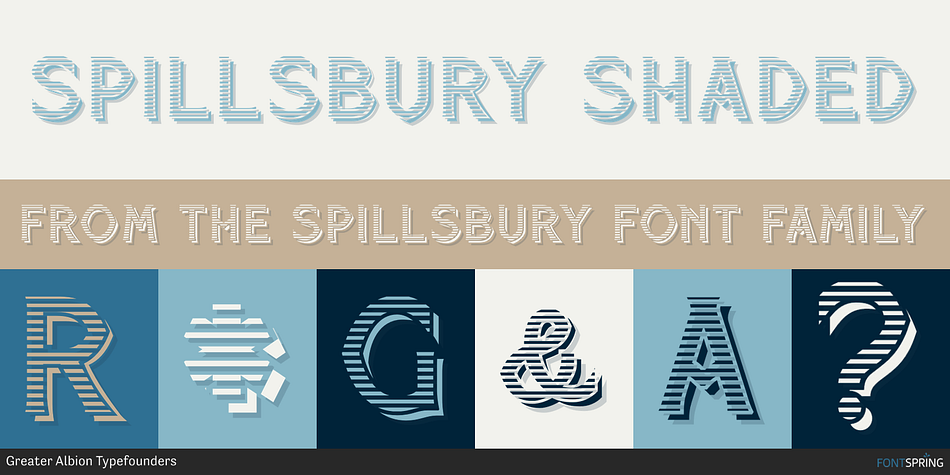
SPILLSBURY SHADED
Spillsbury is a historical and western font family. This typeface has ten styles and was published by Greater Albion Typefounders.
Spillsbury was inspired by some examples of 1920s signwriting (principally seen on the side of some vintage vans-good thing they were in a photograph and not on the move!).
Spillsbury was inspired by some examples of 1920s signwriting (principally seen on the side of some vintage vans-good thing they were in a photograph and not on the move!).  Spillsbury draws inspiration from these sources to provide a unique combination of legibility and flair, which echoes the charm of advertising and publicity material from the halcyon days of the 1920s. A basic range of four display faces os offered - Regular, Plain (not all that plain really!), Shaded and Shadowed.  In a new departure for Greater Albion, three pairs of ‘Duo’ faces are also offered.  These are designed to be used in pars (and only sold on that basis-for little more than the cost of a single face-to provide for two-coloured typographic design, enabling the recreation of those evokative two coloured blocked lettering styles that were used to such good effect in the past.  Take a trip back to more colourful times today with Spillsbury!